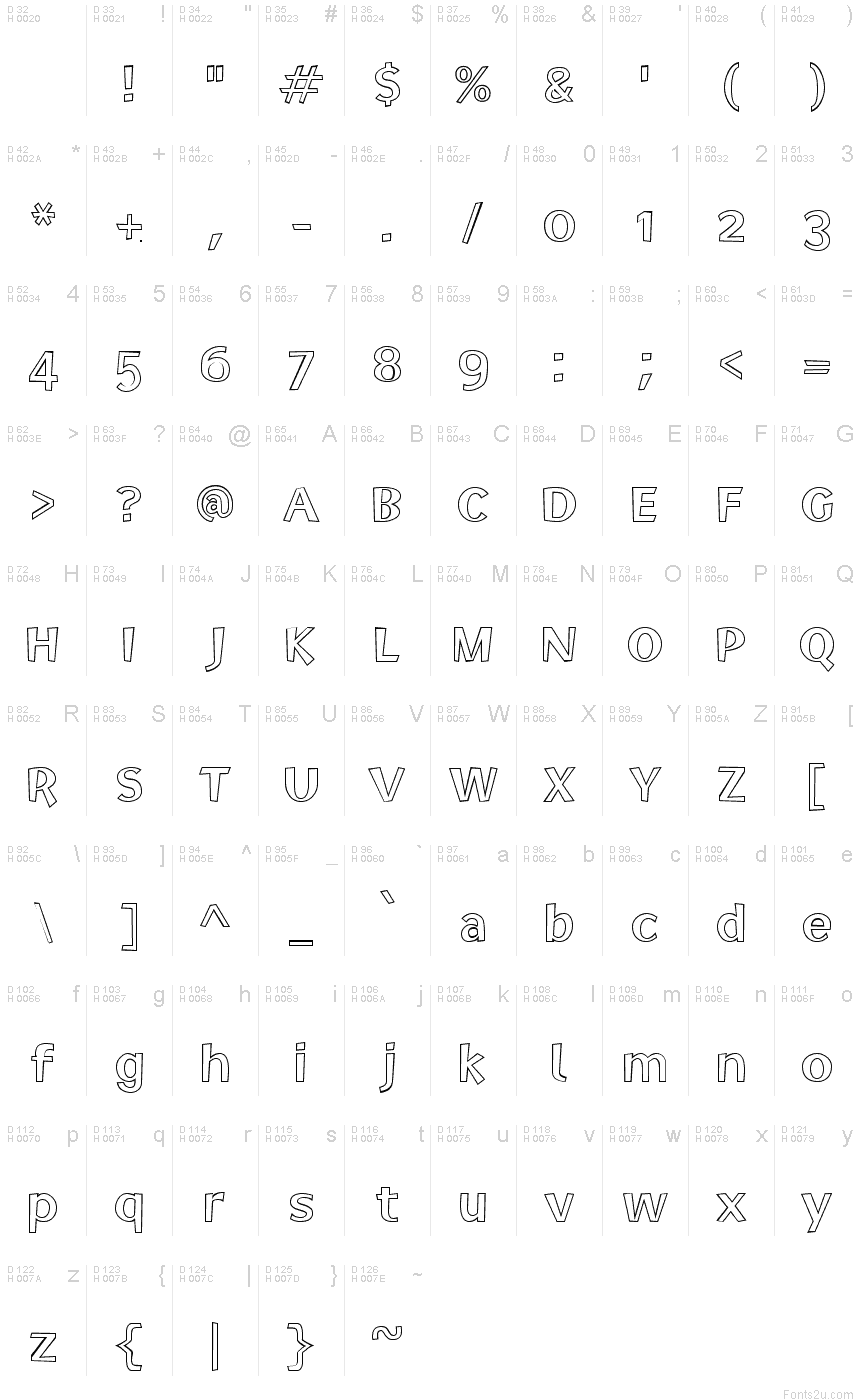
Elected Office Outline
Elected Office Outline font by Tepid Monkey Fonts is a free comic outline display typeface. Its thick hollow strokes and rounded, slightly wobbly rhythm make headlines loud without turning stern, giving the whole line the feel of a hand-painted campaign sign with a friendly grin.
Using Elected Office Outline works beautifully for student council posters, local election flyers, parade banners, school newsletters, fundraiser signs, civic event graphics, and tongue-in-cheek campaign merch. Set it large, and pair this free font with a plain sans serif for body copy so the outlined letters stay crisp and easy to scan.